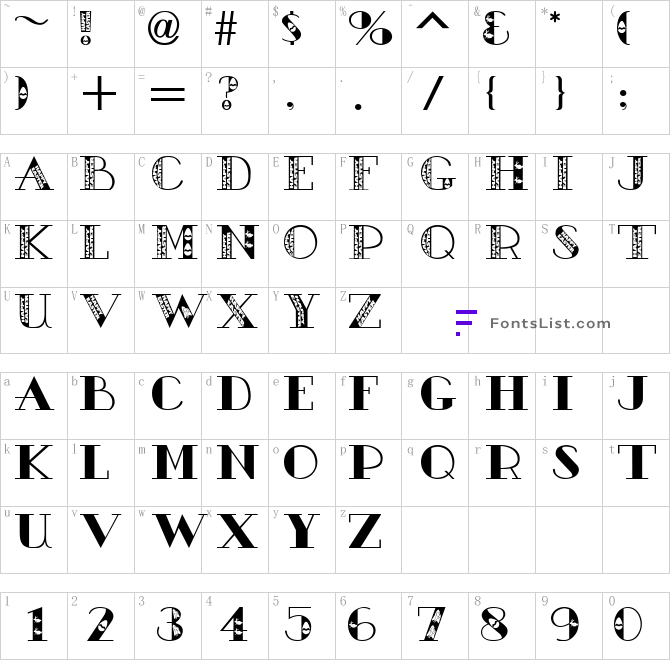
- Font Name:AC1-Easter
- Full Name:AC1 Easter
AC1-Easter.ttf is a very beautiful artistic font, AC1-Easter.ttf is widely used in the design and printing of various books and pictures,AC1-Easter.ttf has a strong visual impact,AC1-Easter.ttf is a commonly used font in newspapers, magazines and books, and is used in posters, e-commerce Poster design, store design, logo design, font design and other fields.AC1-Easter.